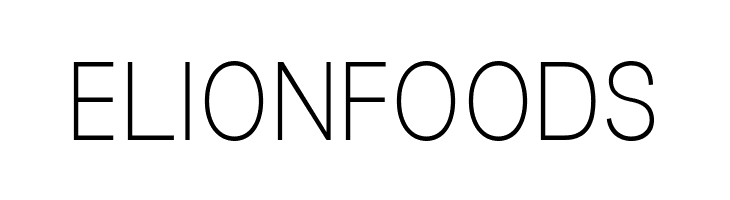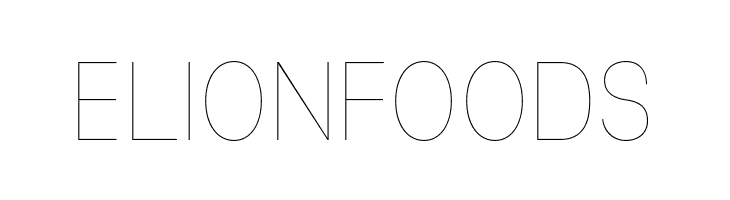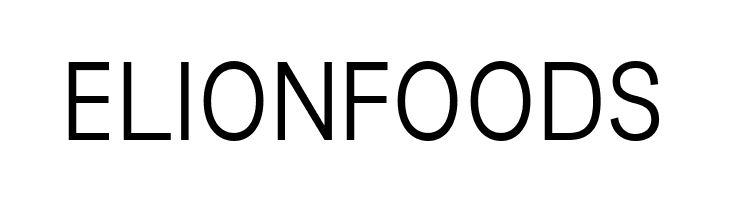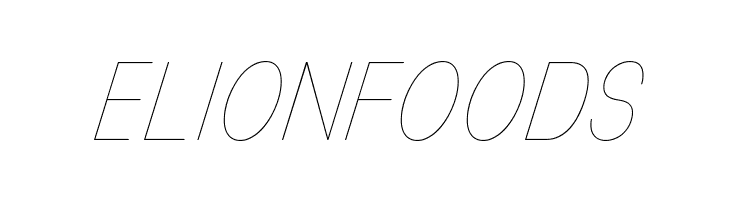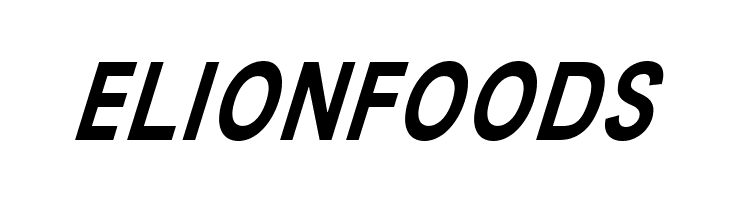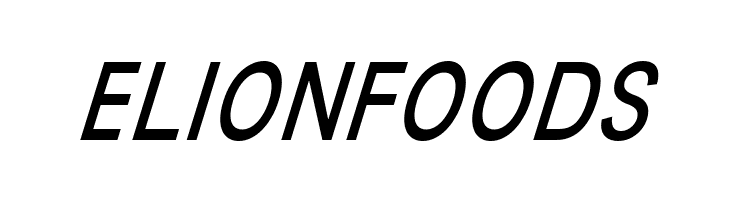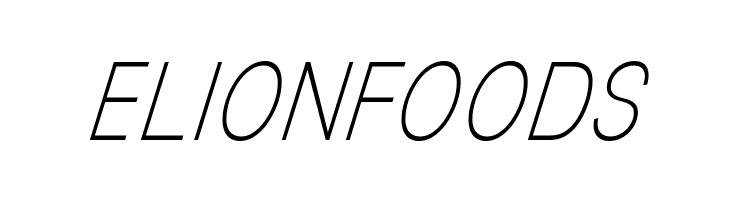
A bold, modern font with strong, impactful characters.
A modern, geometric sans-serif font with uniform character width and clear readability.
A modern, geometric font with thin, uniform strokes and a minimalist style.
A sleek, italicized font with thin, elongated characters for a modern look.
A bold, italic font with a modern and dynamic style.
A modern, italicized font with a sleek and professional appearance.
A sleek, italicized font with a modern and elegant style.
A modern, italic sans-serif font with a sleek and dynamic style.
A bold, modern sans-serif typeface with uniform strokes and excellent readability.